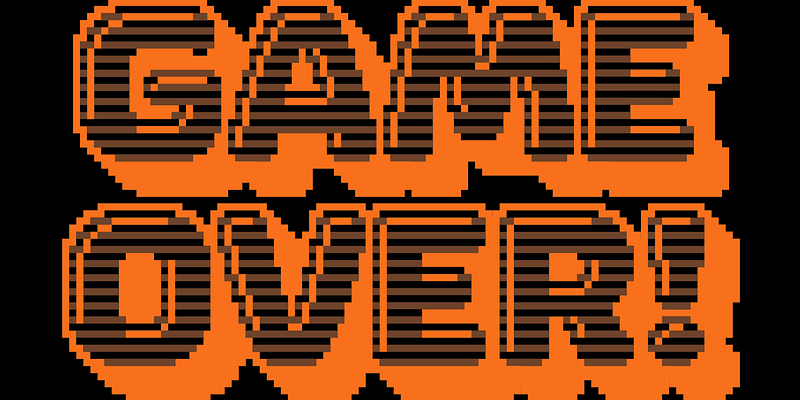
Puffin Arcade Font Free Download is a bold and playful display typeface that brings retro video game vibes and high-energy fun to your typography. Inspired by vintage arcades, pixel art, and 80s aesthetics, this font is perfect for gaming posters, character branding, tech gadgets, apparel, YouTube thumbnails, and any design project that wants to pop with nostalgic personality.
Puffin Arcade Font Free Download features geometric shapes, chunky letterforms, and subtle quirks that give it a unique, standout rhythm. While it nods to retro gaming, it’s been carefully modernized for clean digital use—making it highly usable for both screen and print designs.
Whether you’re creating vibrant titles, dynamic logos, or bold merchandise graphics, Puffin Arcade delivers a punchy, animated presence that’s easy to customize and always fun to use.
Colorful, nostalgic, and full of energy—Puffin Arcade is your go-to font for designs that play hard and look unforgettable.